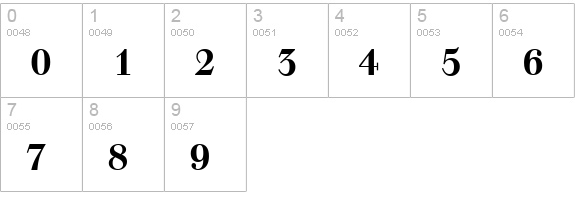
Walbaum-Original-Medium-Regular Font Details
Walbaum-Original-Medium-Regular is a balanced, medium-weight variant in the Walbaum typeface family \xE2\x80\x94 well suited to sub-headlines, navigation, and balanced editorial work.
Walbaum Original Medium Regular font is a timeless and sophisticated typeface that exudes elegance and professionalism. With its balanced proportions and classic design, this font is perfect for a wide range of projects, from branding to editorial design. The medium weight of the font strikes the perfect balance between legibility and impact, making it versatile and suitable for various applications. One of the best things about Walbaum Original Medium Regular font is that it is available for free download at FontsMarket.com. This means that you can easily access this high-quality font and use it in your projects without any cost. Whether you're working on a personal project or a client's design, this font will elevate your work and give it a polished and refined look. Don't miss the opportunity to enhance your designs with the timeless beauty of Walbaum Original Medium Regular font, now available for free at FontsMarket.com.